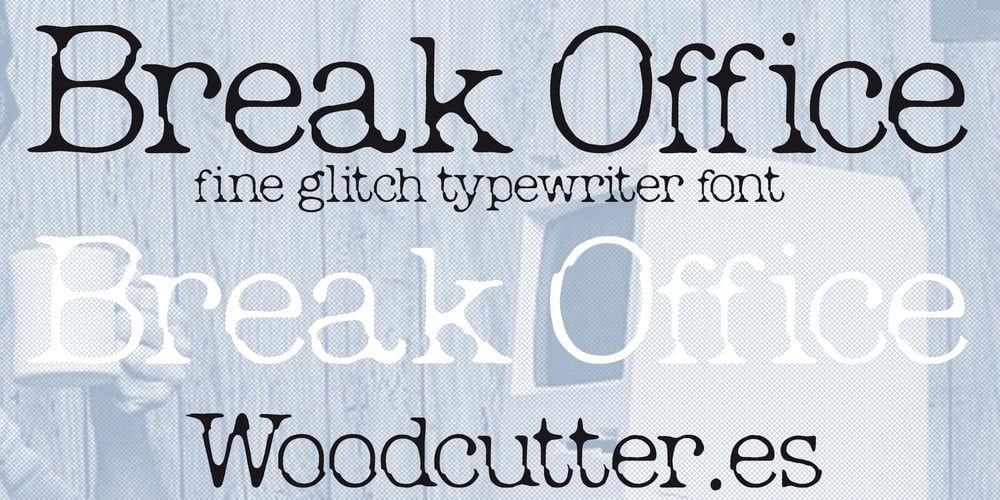
Break Office
Break Office font
Break Office Font Family was designed by Jordi Manero and published by Woodcutter. Break Office contains 1 styles and family package options. “Break Office” is a typeface that combines the classic typewriter style with a modern and unsettling twist. Its letters, available in both uppercase and lowercase, feature a distorted appearance, as if interference or a digital glitch had affected them. This design conveys a sense of chaos and mystery, making it perfect for projects seeking a nostalgic vibe with a contemporary edge. Ideal for posters, book covers, or digital designs, “Break Office” delivers a unique aesthetic that blends vintage charm with a disruptive touch, grabbing attention with its irregular and character-filled details.